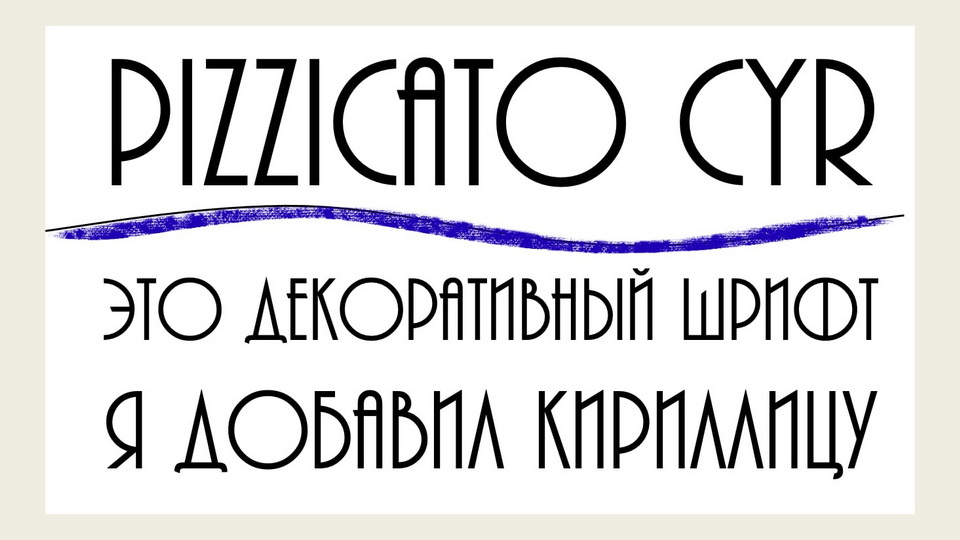
Download Pizzicato Cyr font, a striking display typeface inspired by the retro elegance of the original Pizzicato, infused with bold Art Deco influences.
Designer: Dimka